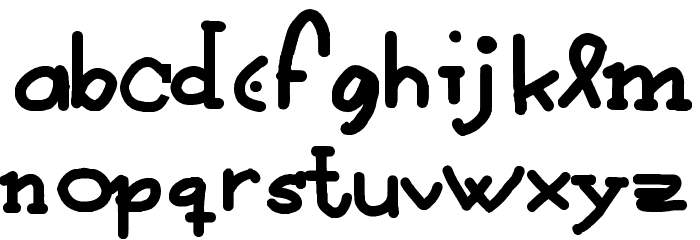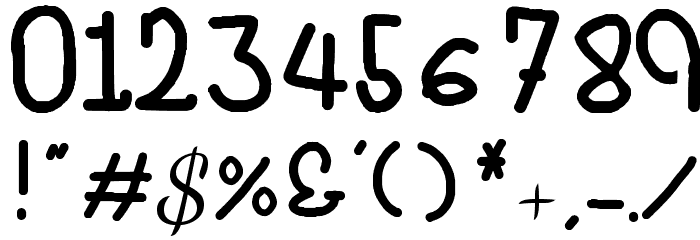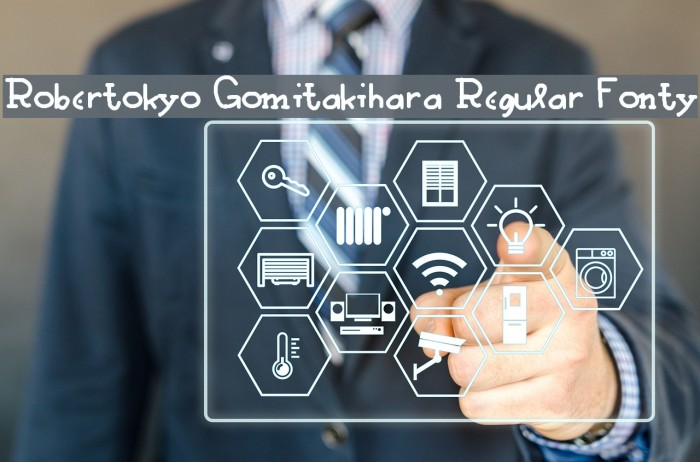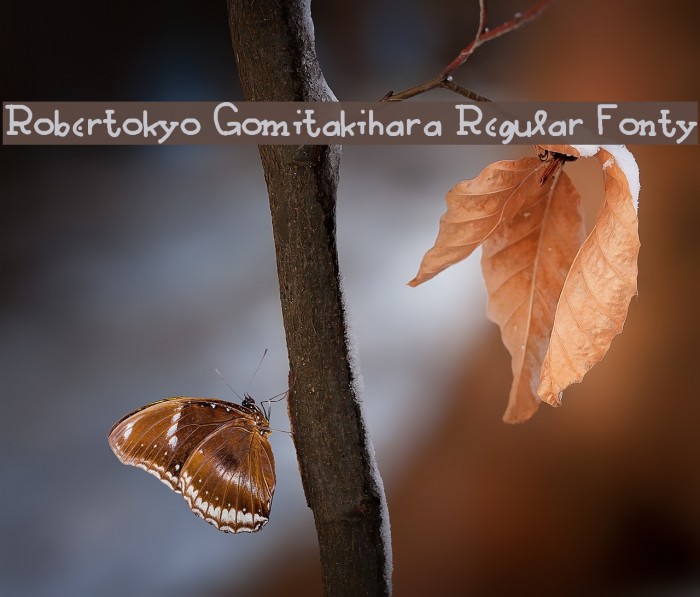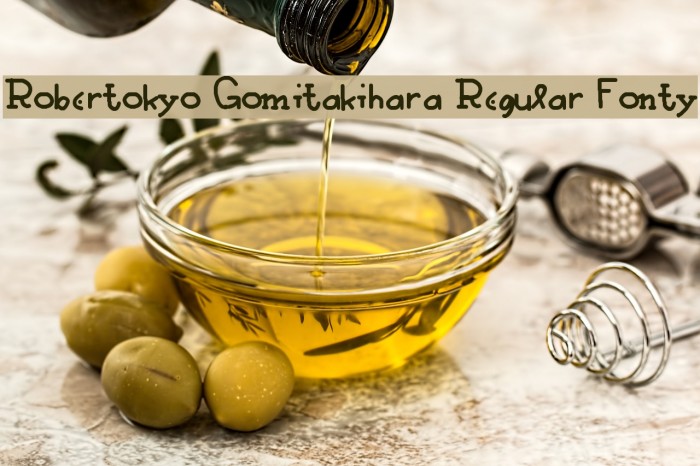
Robertokyo Gomitakihara Regular Fonty Font
This font features a playful and informal style with a hand-drawn appearance. The characters are bold and rounded, giving them a friendly and approachable look. The uppercase letters are slightly taller than the lowercase, maintaining a consistent width throughout. The numbers and special characters follow the same playful design, making them easily recognizable and cohesive with the rest of the font. The overall appearance is casual and artistic, suitable for projects that require a personal touch.
A playful, hand-drawn font with bold, rounded characters.
- Proposed Projects: Ideal for children's books, greeting cards, posters, and creative branding projects.
- Overall Style: Casual